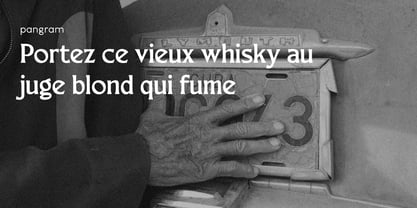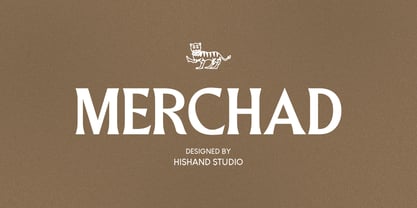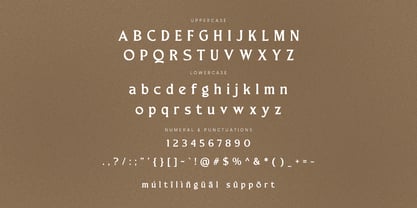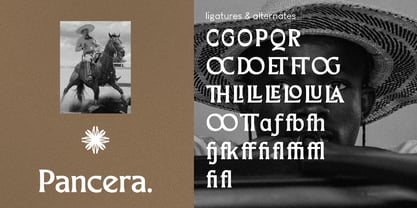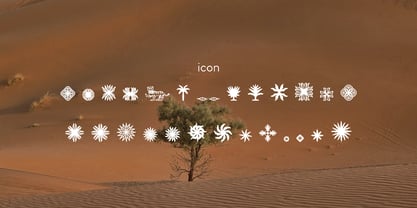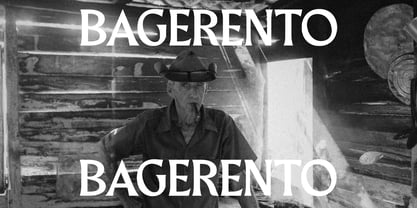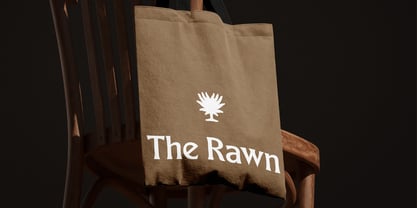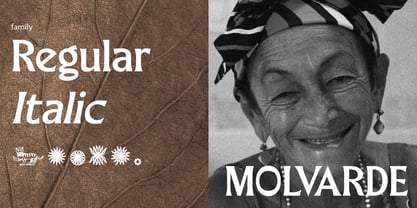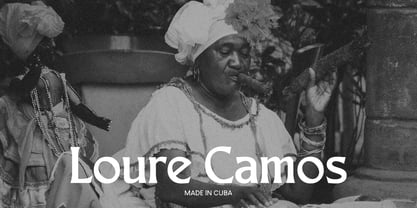
Merchad
by Hishand Studio
The Merchad Font Family was designed by Putu Dody Permana and published by Hishand Studio. Merchad contains 3 styles and family package options. More about this family
Merchad is a bold display serif made for brands that prefer confidence over noise. Inspired by the refined elegance of modern luxury fashion typography, Merchad balances strength with sophistication. Its letterforms are confident and weighty, yet never thick or heavy-handed. Every curve and serif is deliberately sculpted, striking a perfect harmony between boldness and grace.
This typeface is designed for branding, logotypes, editorial headlines, and packaging that demand instant visual impact paired with timeless elegance. The high contrast strokes and sharp serifs give Merchad a distinctly editorial, high-fashion character, while its clean proportions ensure it remains legible and versatile at any size.
Merchad is more than a typeface, it's a visual identity in itself. Perfect for couture labels, premium product lines, and modern lifestyle brands, it delivers the kind of aesthetic gravity that makes a name memorable. Complete with :
- ligatures
- alternates
- regular
- Italic
- icon
- kerning
- multilingual support